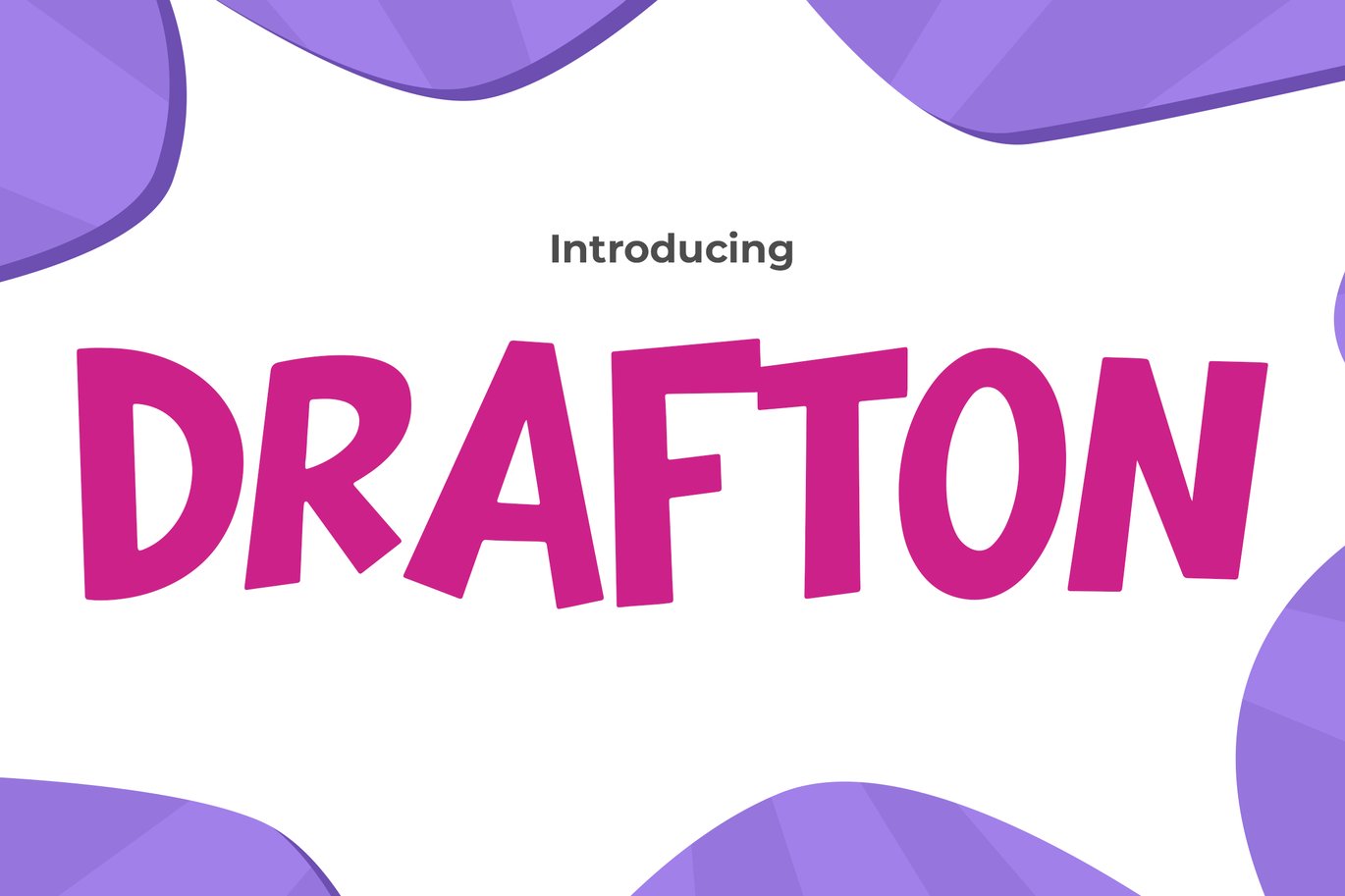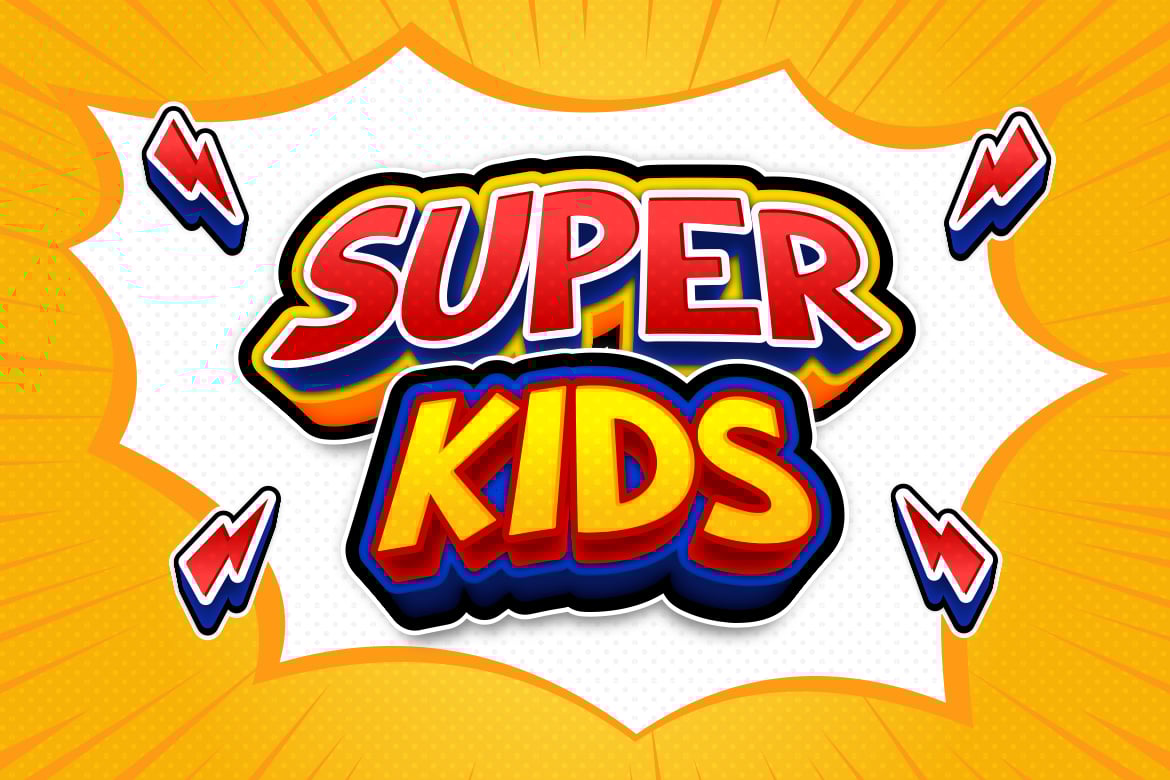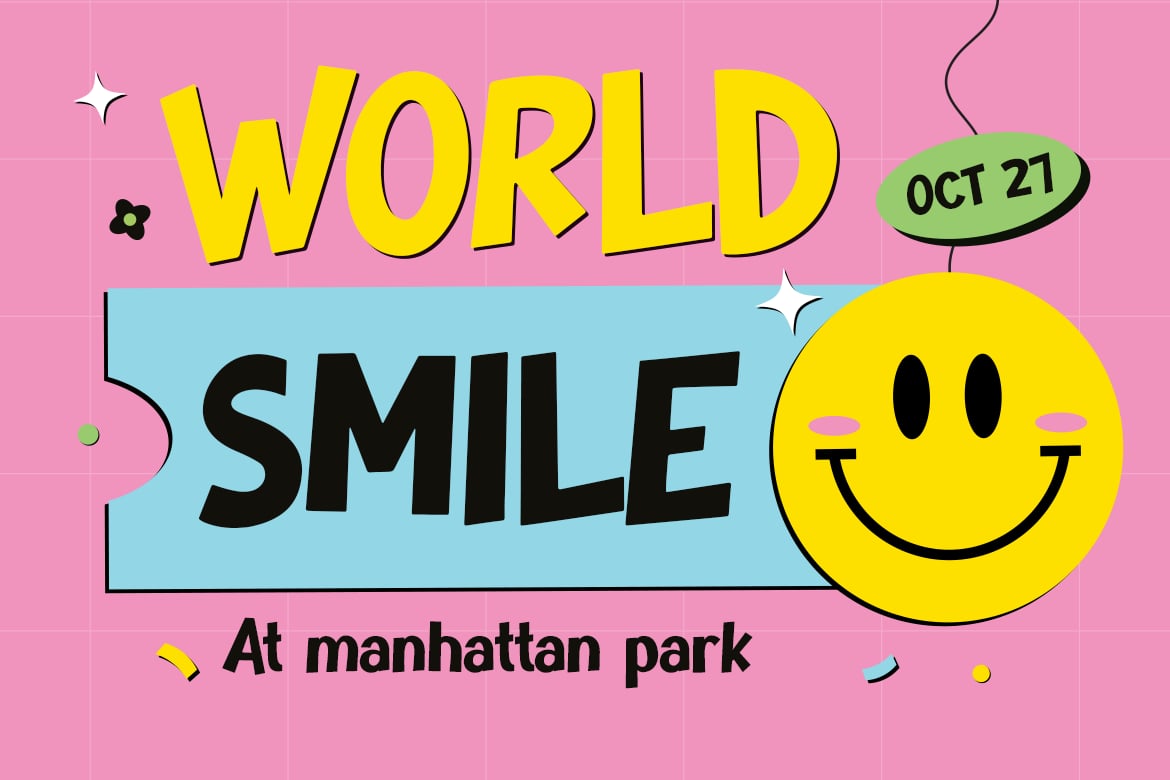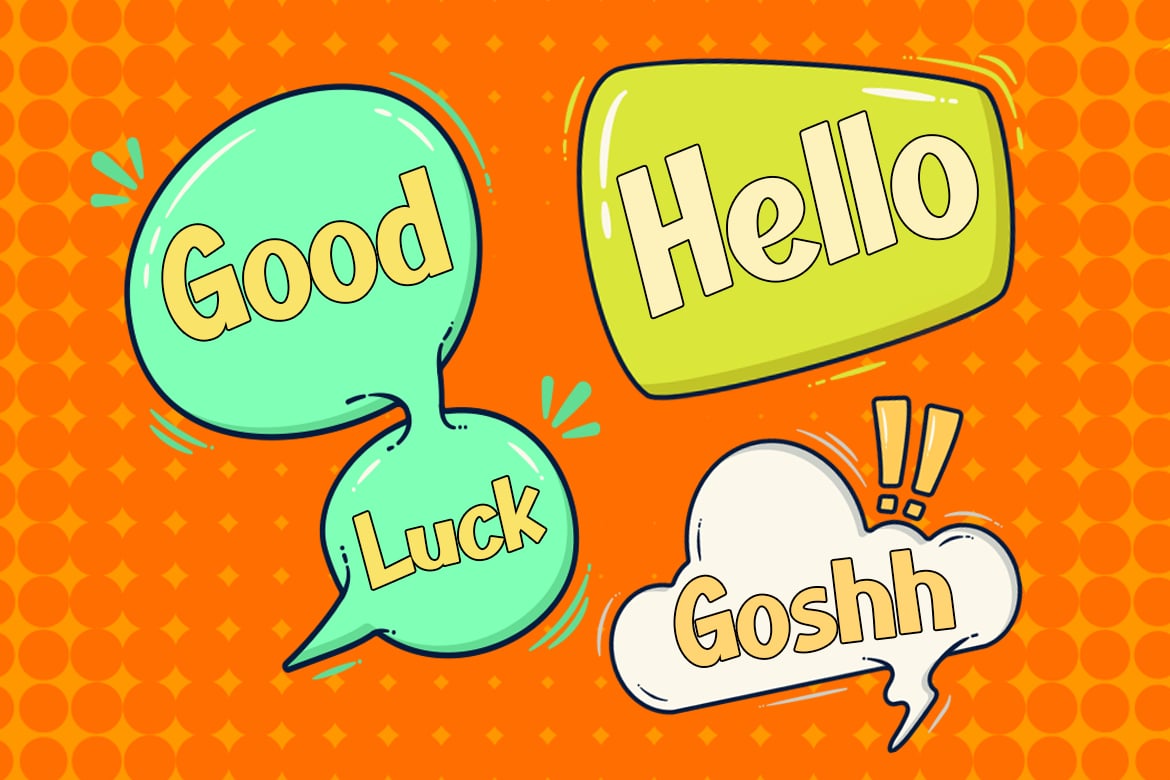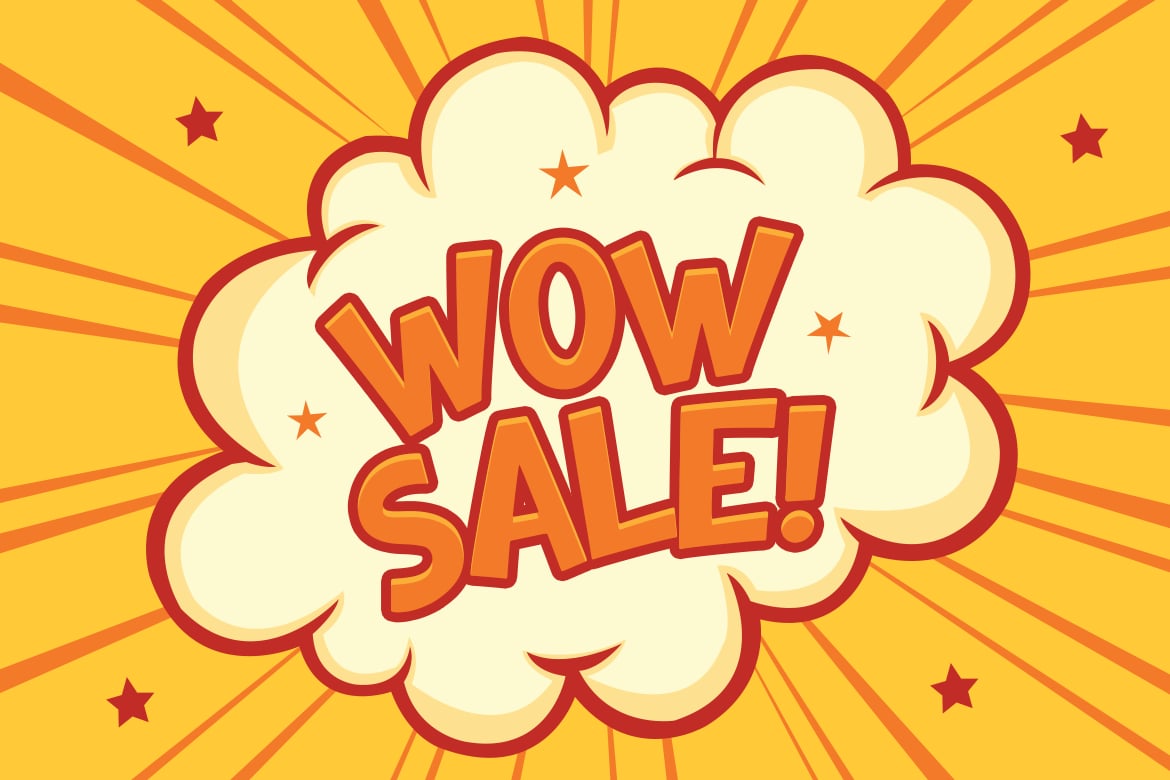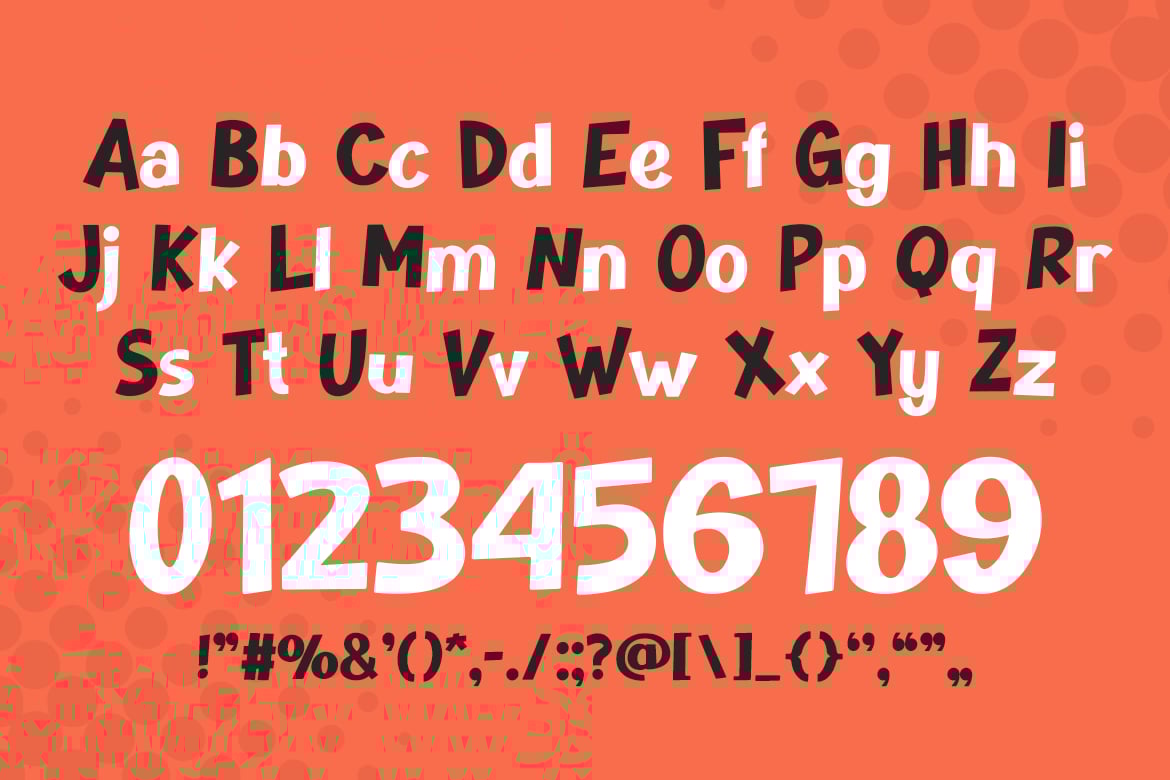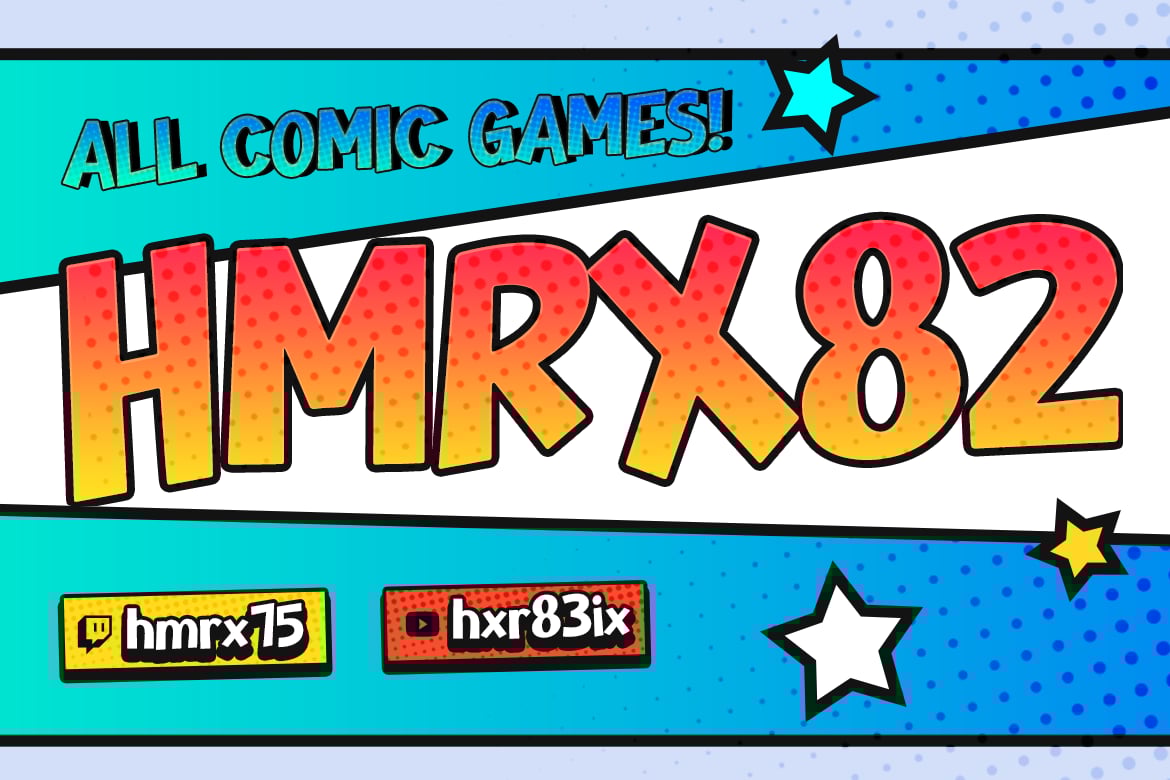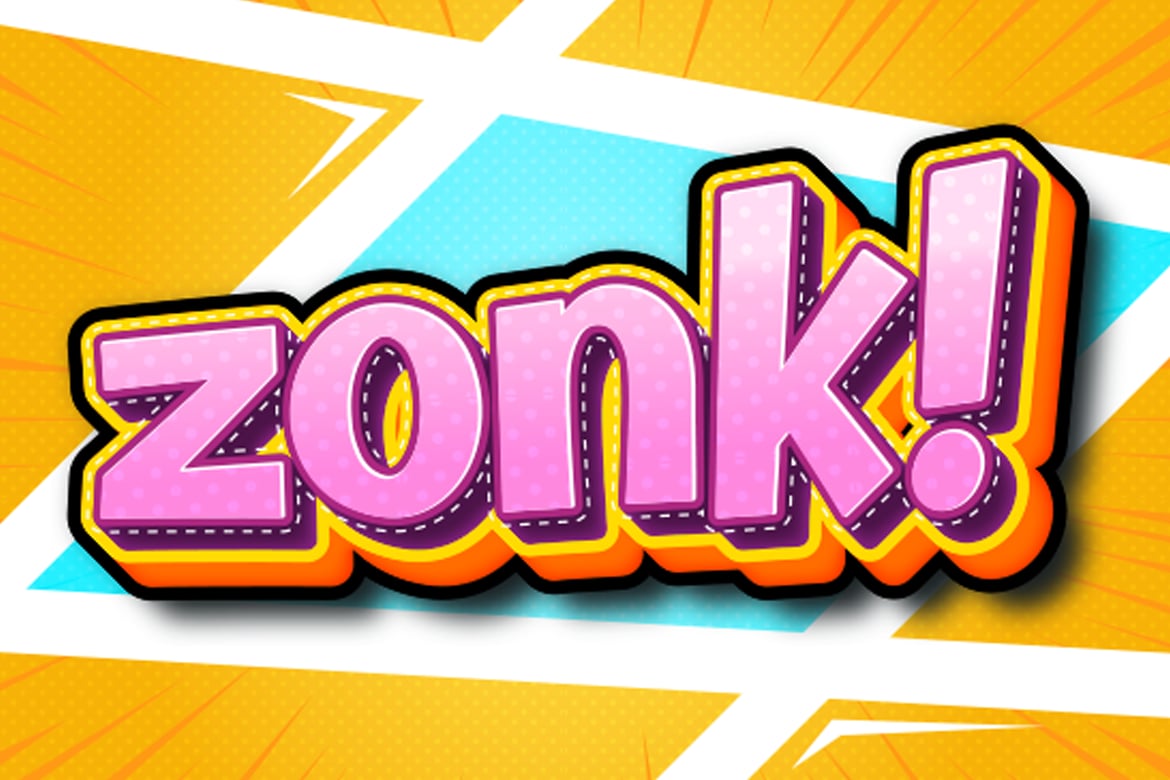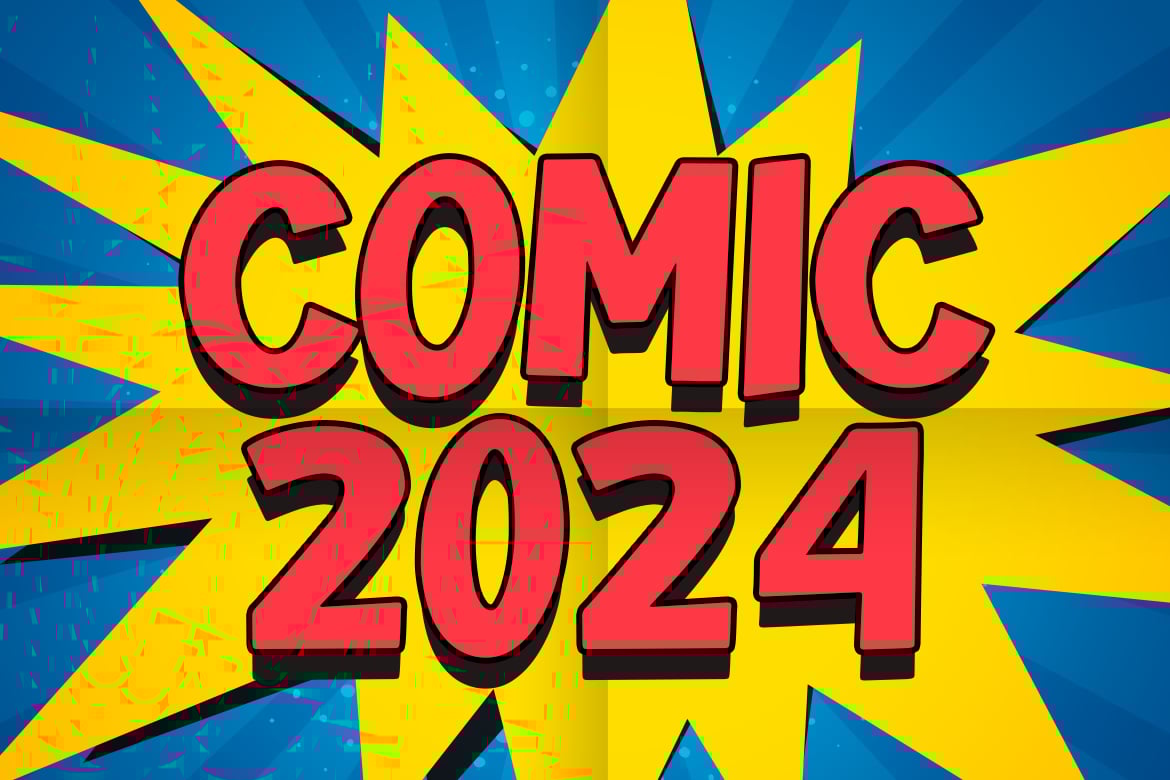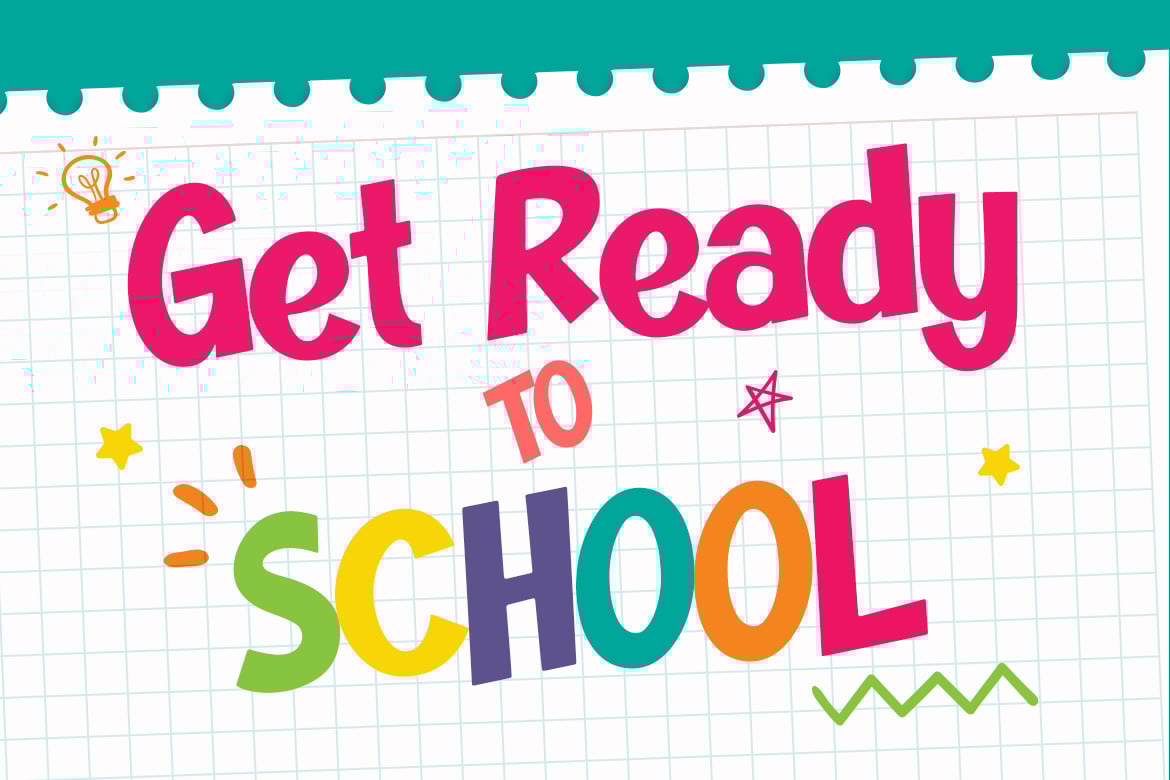
Game Font – Drafton
Drafton is a playful comic font designed specifically for gaming and entertainment contexts, blending fun, cuteness, and a bit of whimsy into its sans serif design. This font captures the essence of children’s enjoyment and video game excitement, making it perfect for any project aimed at a younger audience or gaming enthusiasts. Whether used to spruce up logos with its lively character, add humor to quotes, or create engaging invitations, Drafton ensures every design is eye-catching and joyful. Ideal for posters, greetings, and packaging, this font adds a touch of fun to branding and event materials. It also performs beautifully on book covers and in advertising campaigns, bringing a consistent and appealing visual to any creative work.